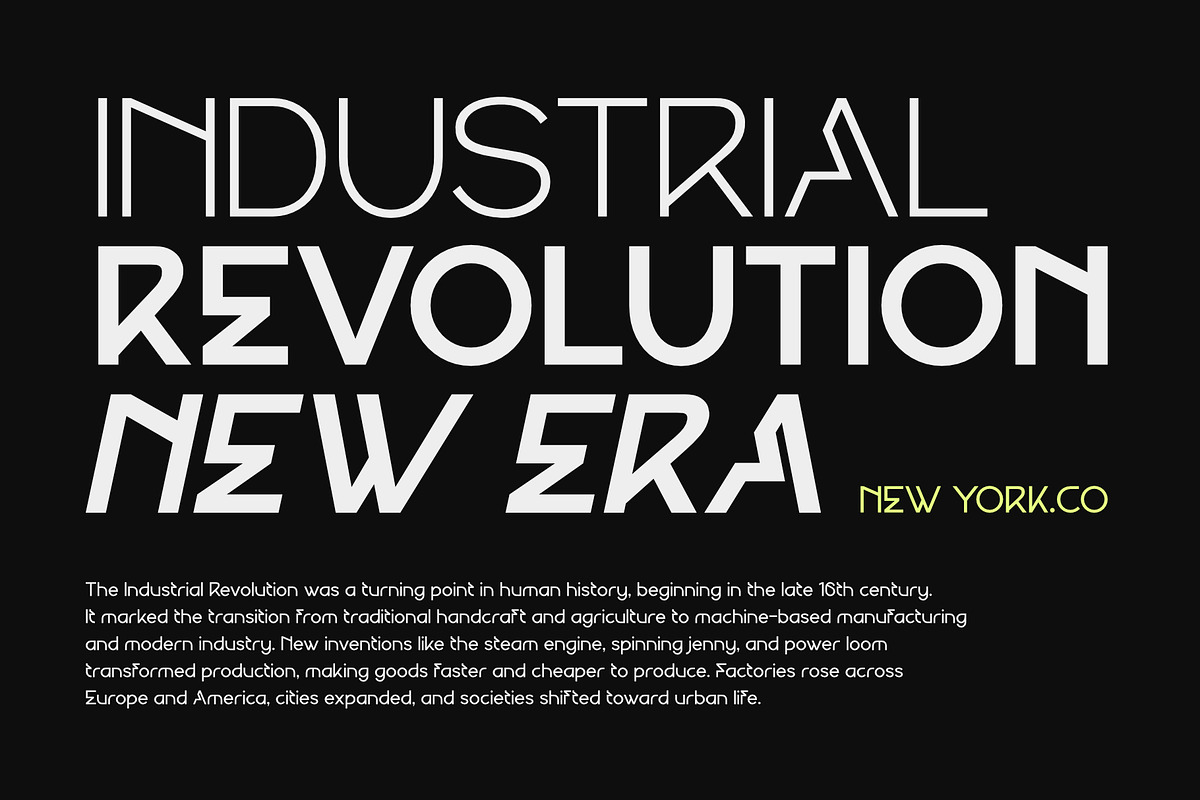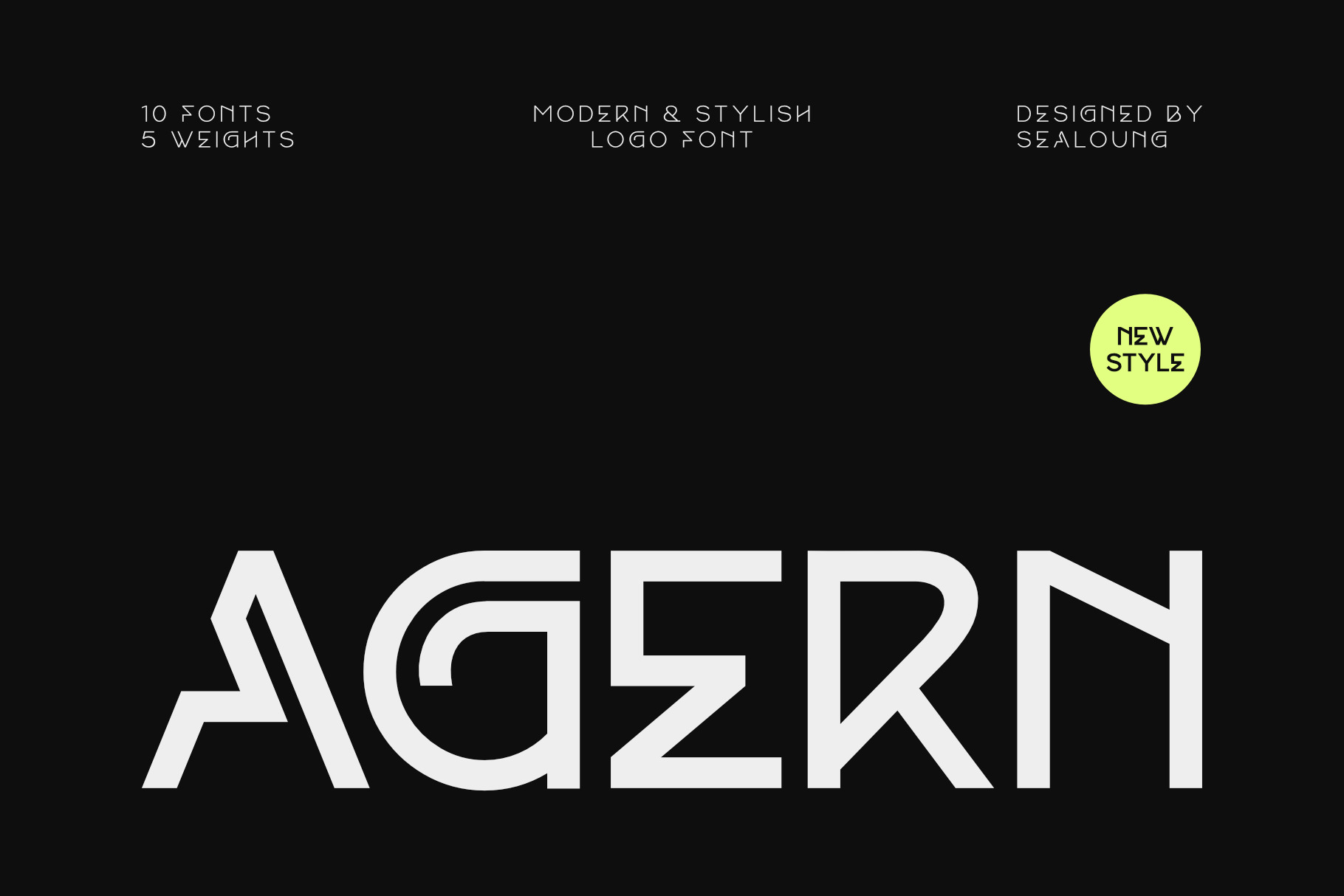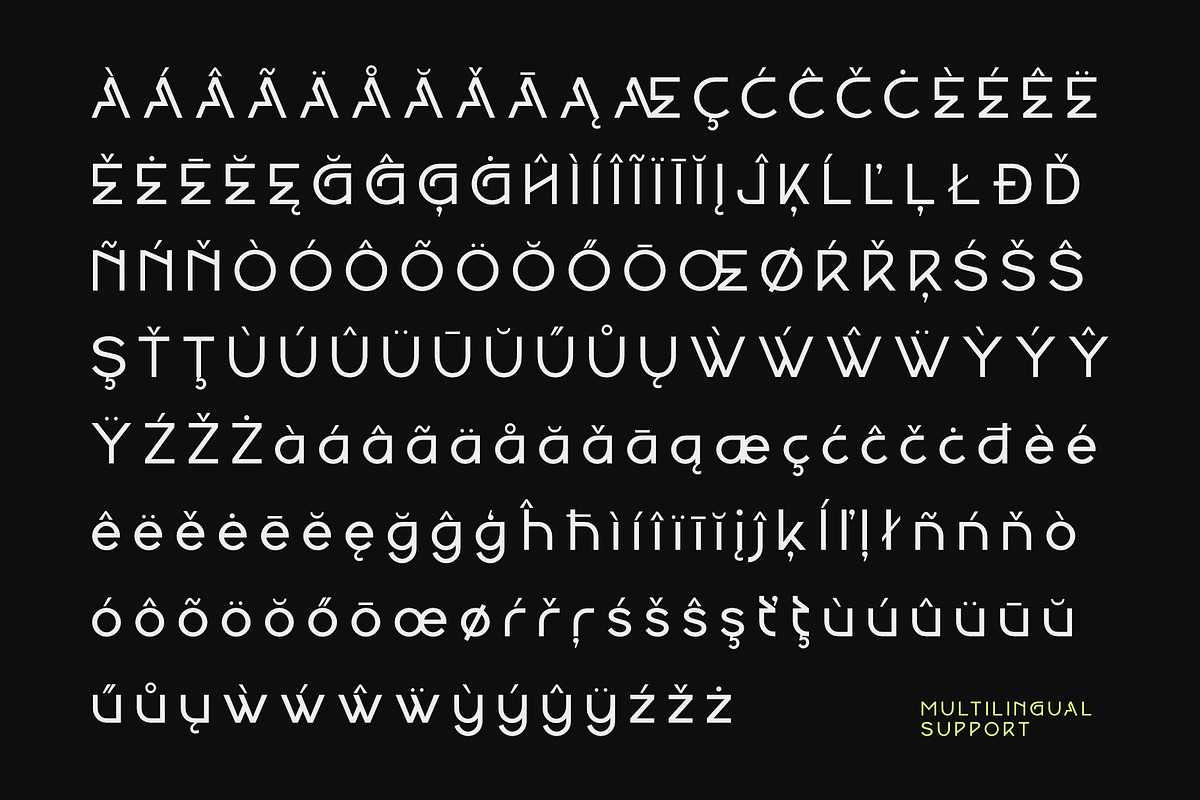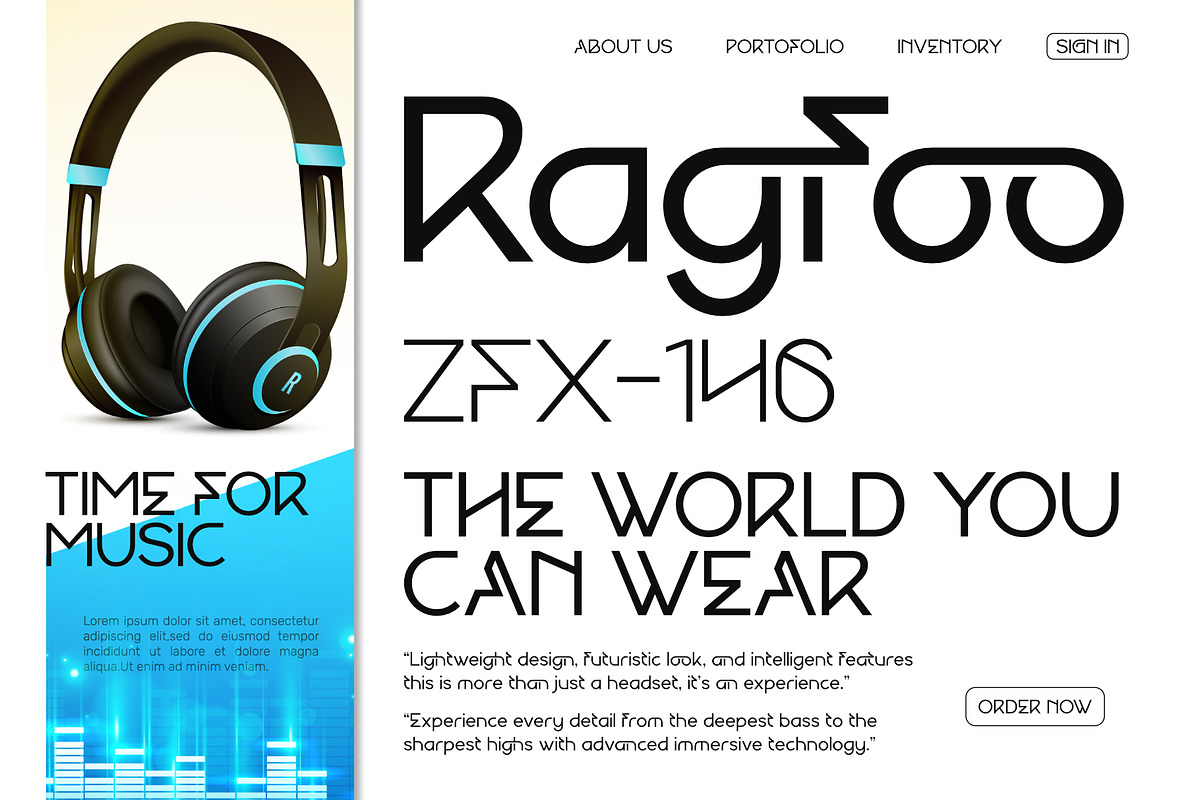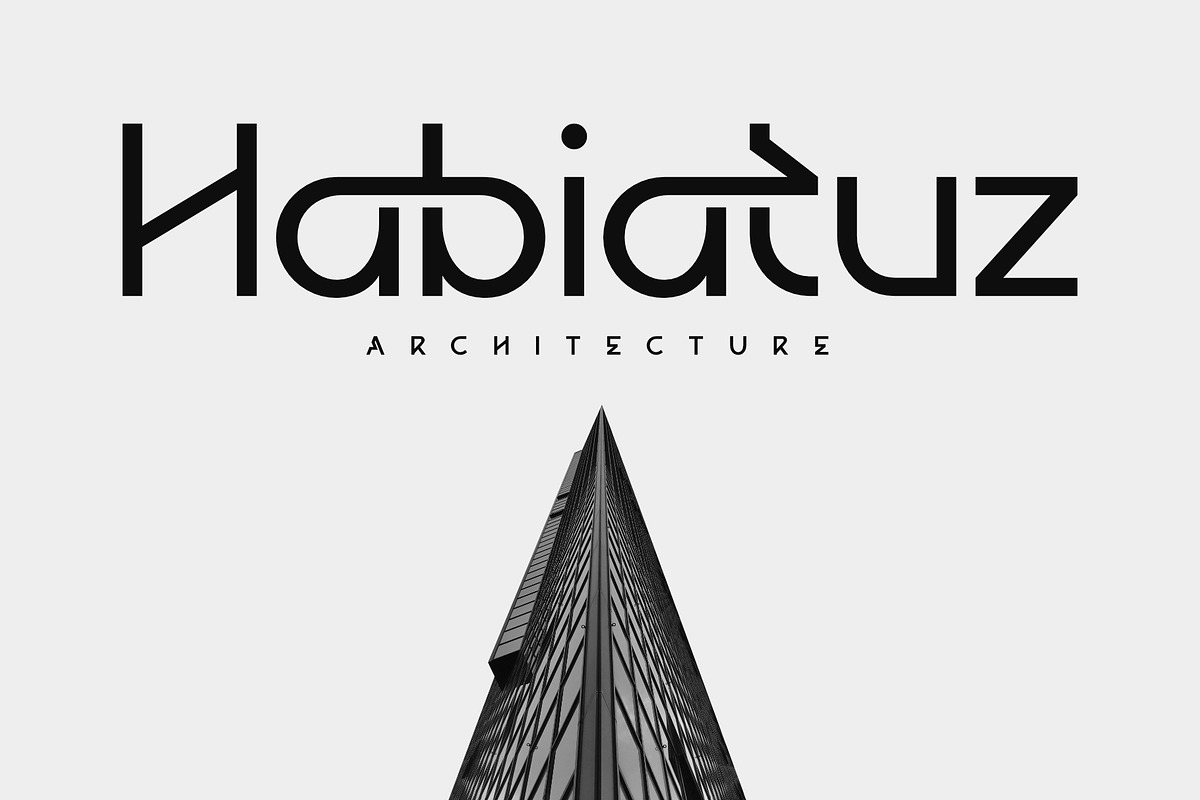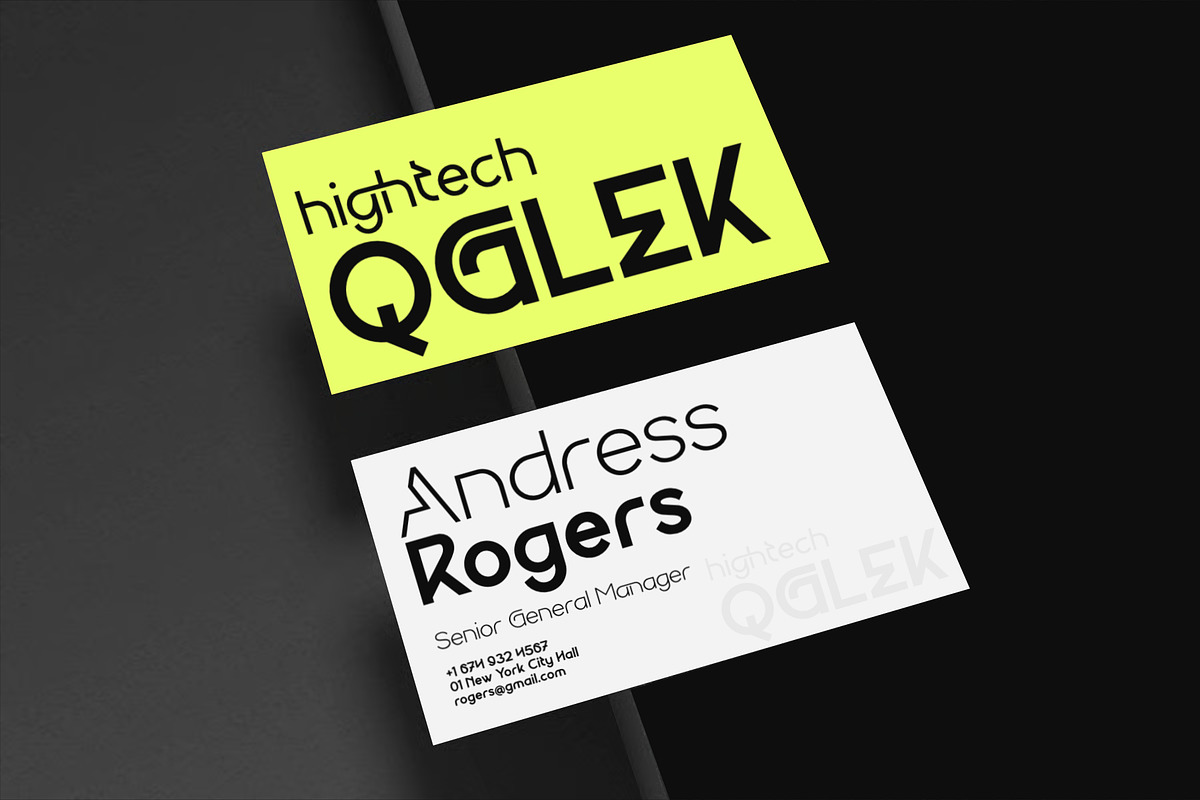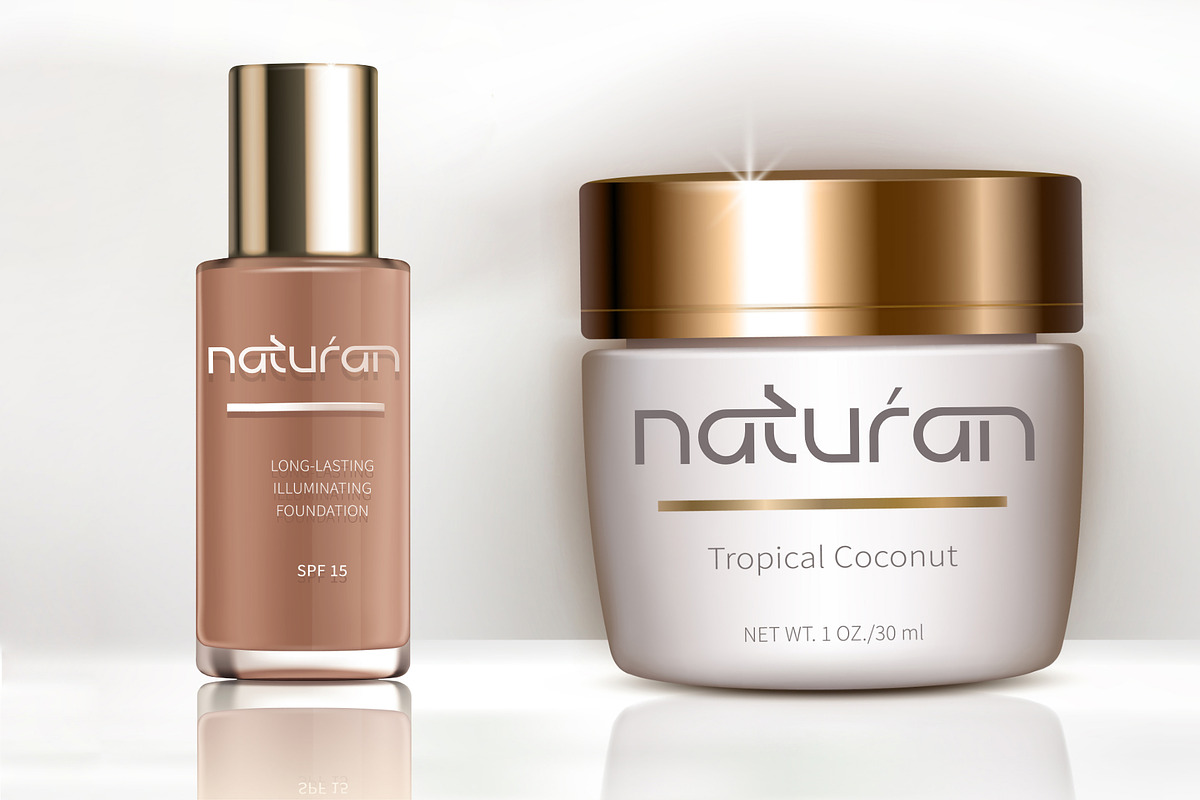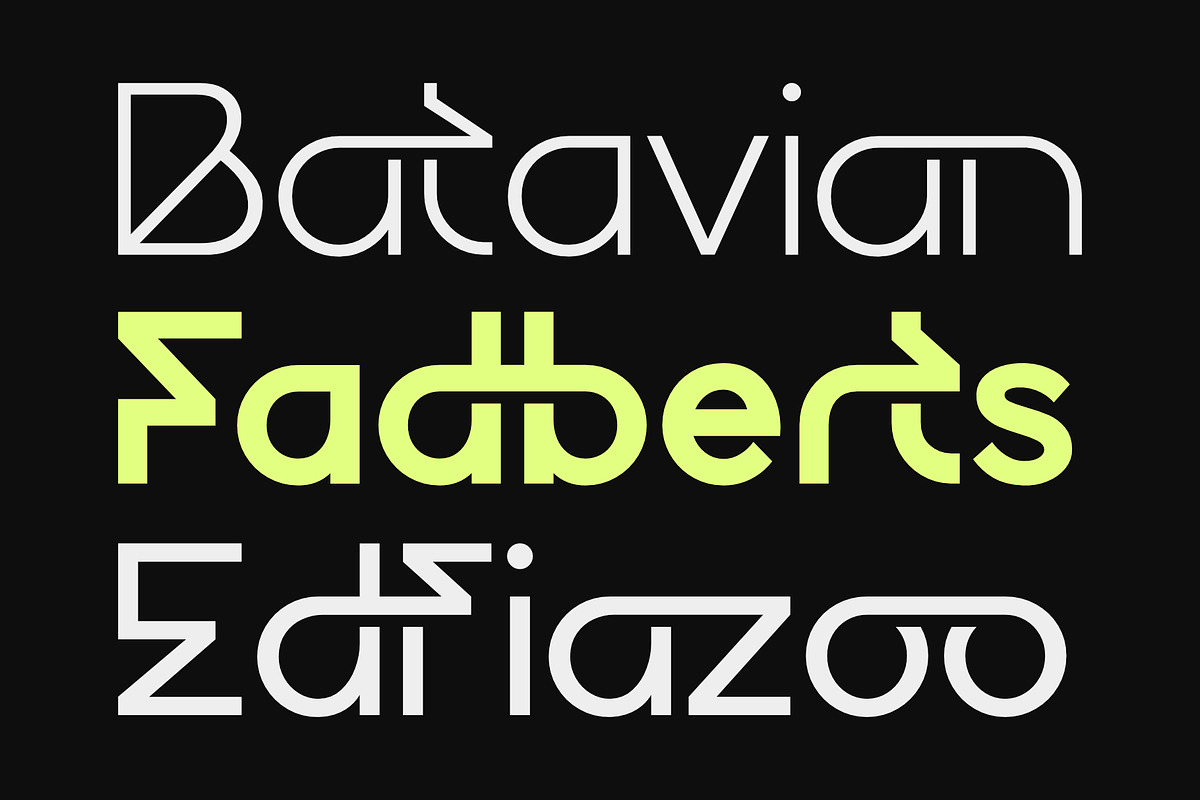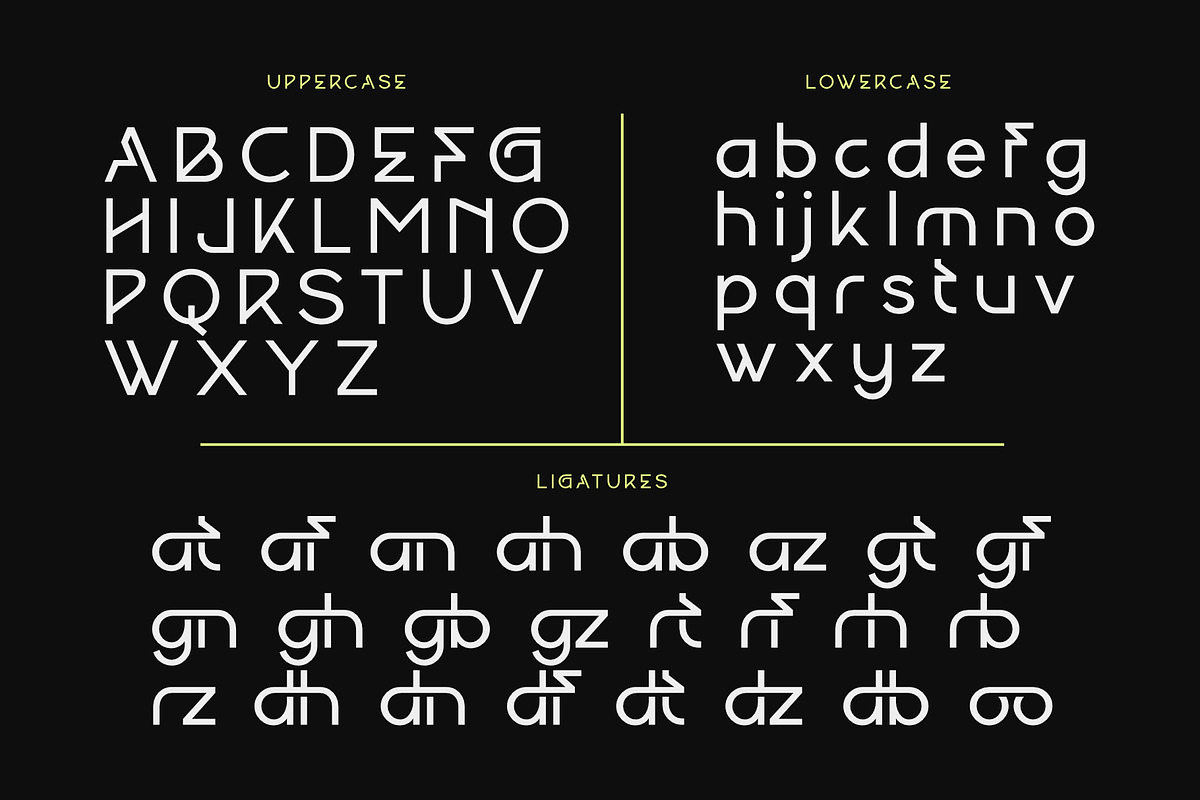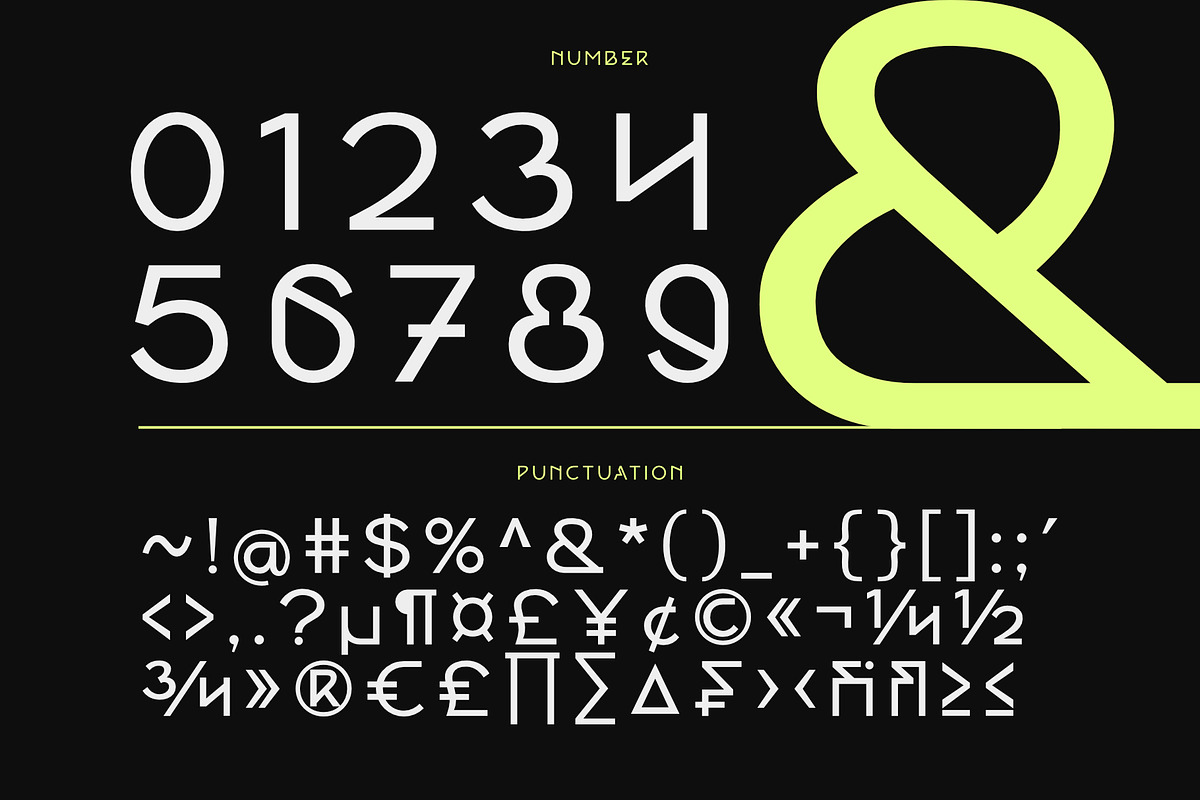
Agern - Modern Stylish Logo Font
Agern – Modern Stylish Logo Font by Sealoung
Agern is a refined sans-serif typeface created to elevate professional branding and corporate identity. With a complete range of weights from Thin to Bold, it blends sleek geometry with versatile usability, making it a perfect choice for logos, brand identities, and contemporary design projects.